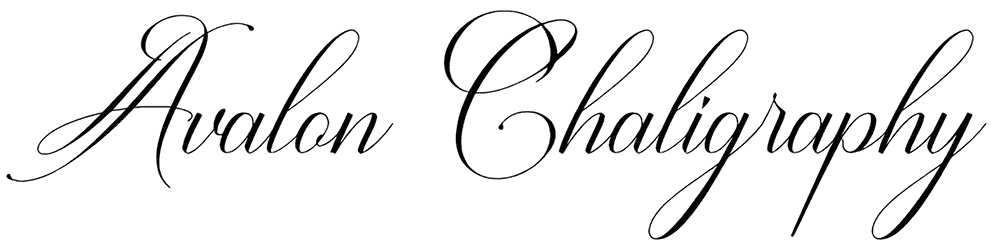
Avalon Chaligraphy Font
Wedding invitations, posters, gift cards, business cards, or branding projects are the best possible field for utilizing a magical script font that is masterfully crafted with crooked and thin letters.
Aside from the lack of good readability, this calligraphy font can be your savior in the middle of critical projects. In addition to all of its numerous benefits, it can surprise the audience by conveying a sense of softness, delicacy, tenderness, or vitality to their minds.
This charming font will turn any creative idea into a standout.